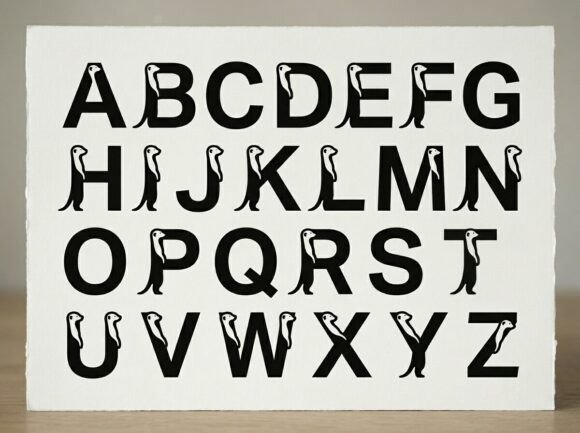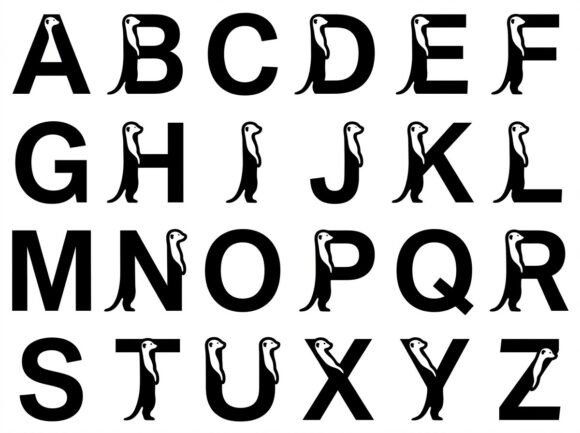
Embark on a Creative Safari with Amara Font
Are you ready to venture into the wild world of typography? Look no further than Amara, a premium display font that combines bold, geometric sans-serif letterforms with the whimsical charm of the savanna. This unique typeface is sure to captivate your audience with its clever use of negative space, transforming each character into a silhouette of vigilant meerkats.
The Inspiration Behind Amara
Amara’s design is inspired by the fascinating creatures of the savanna, where the boundaries between structure and nature blur. The font’s creator aimed to capture the essence of the African wilderness, where geometric shapes and organic forms coexist in harmony. The result is a typographic masterpiece that tells a story of watchful protection and artisanal elegance.
Design Features of Amara Font
Amara’s design features heavy, geometric sans-serif letterforms with a distinctive twist. The negative space within each character is carefully crafted to resemble the silhouettes of meerkats, those endearing and vigilant creatures of the savanna. This clever use of negative space creates a captivating visual narrative that sets Amara apart from other display fonts.
The contrast between the solid, structural stems and the fluid, organic animal forms is a hallmark of Amara’s design. This contrast adds depth and visual interest to the font, making it perfect for a wide range of applications, from wildlife conservation branding to adventurous travel logos.
Use Cases for Amara Font
Amara’s versatility makes it an excellent choice for various design projects, including:
- Wildlife Conservation Branding: Amara’s unique design makes it an ideal choice for environmental non-profits, zoos, and wildlife sanctuaries looking for a bold and meaningful way to express their mission.
- Zoo Signage: Amara’s large, display font size and clear typography make it perfect for signage, banners, and exhibits that require attention-grabbing headlines.
- Educational Children’s Book Titles: Amara’s playful and engaging design makes it an excellent choice for children’s book titles, adding a touch of whimsy and adventure to any story.
- Adventurous Travel Logos: Amara’s bold and elegant design makes it perfect for travel brands looking to evoke a sense of exploration and excitement.
- Nature-Themed Lifestyle Brands: Amara’s artisanal and wildlife-inspired elegance makes it an excellent choice for brands that celebrate the beauty of nature.
Why Choose Amara Font?
Amara offers a unique combination of bold typography and whimsical design elements that set it apart from other display fonts. Here are just a few reasons why designers and crafters love Amara:
- Unique Design: Amara’s use of negative space and geometric shapes creates a one-of-a-kind visual narrative that captures the imagination.
- Versatility: Amara’s versatility makes it suitable for a wide range of design projects, from branding and signage to editorial and packaging design.
- Elegance and Sophistication: Amara’s bold and elegant design adds a touch of sophistication to any project, making it perfect for high-end brands and publications.
Embark on a creative safari with Amara Font, and discover a world of typographic possibilities. With its unique blend of bold typography and whimsical design elements, Amara is the perfect choice for designers and crafters looking to add a touch of elegance and sophistication to their projects. Whether you’re working on a wildlife conservation campaign or a nature-themed lifestyle brand, Amara Font is sure to captivate your audience and leave a lasting impression.